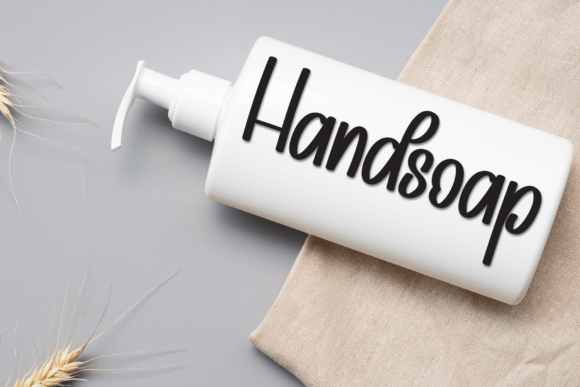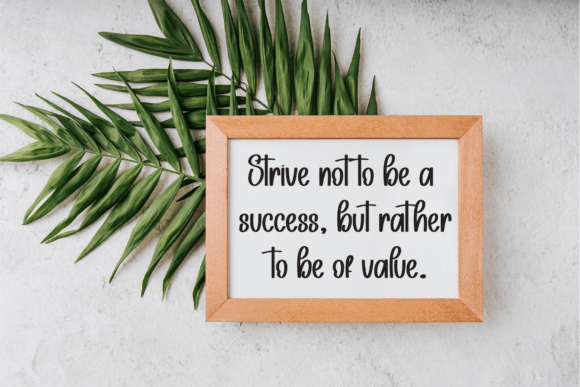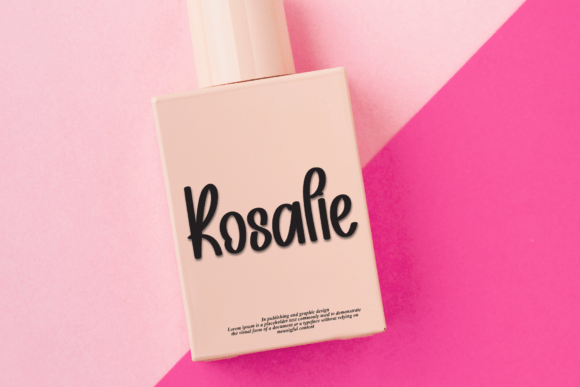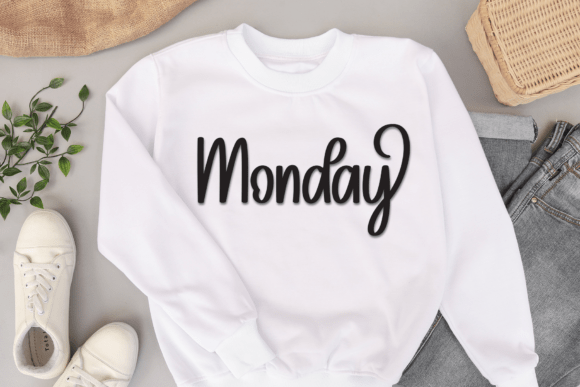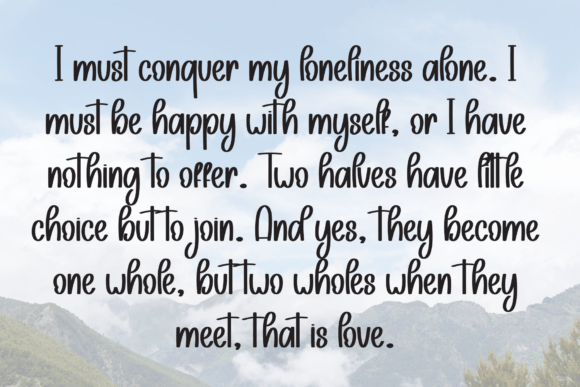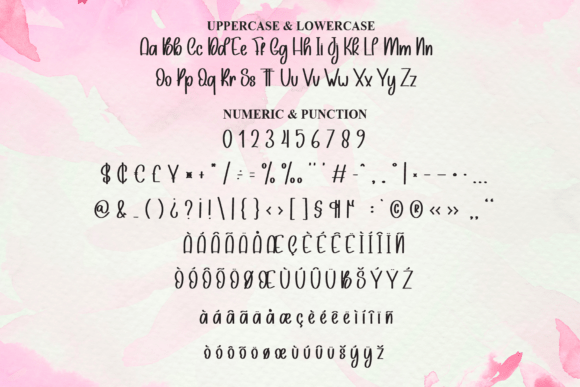
Introduction to Hey Pinky Font
As a designer, there’s nothing quite like the thrill of bringing a project to life. The blank canvas stares back at you, waiting for the perfect stroke of creativity to set it ablaze. And then, it happens – a spark of inspiration that ignites a chain of ideas, each one more captivating than the last. For me, that moment often comes when I stumble upon the perfect font, one that adds a dash of personality to my design and sets the tone for the rest of the project.
That’s exactly what happens when I encounter the Hey Pinky Font, a stunning handwritten script font that captures elegance and playfulness in every stroke. With its flowing curves and natural rhythm, it’s the perfect addition to any creative project, from high-quality invitations to social media graphics.
Key Features of Hey Pinky Font
- Unique and playful design: The Hey Pinky Font is perfect for creative projects that require a touch of whimsy and personality.
- High-quality font: This font is designed to provide a crisp and clear appearance, making it ideal for a variety of design applications.
- Transparent background: This font features a transparent background, allowing designers to easily layer it over other design elements.
- Large character set: The font includes a large character set, including uppercase and lowercase letters, numbers, and punctuation marks.
- Resolution-independent: The Hey Pinky Font is designed to be resolution-independent, making it perfect for use in a variety of design applications, from print to digital.
Honest Review: Hey Pinky Font
As a designer, I’m always on the lookout for high-quality design resources to elevate my creative projects. Recently, I had the chance to try out the Hey Pinky Font, and I’m excited to share my thoughts with you.
- The font’s playful and whimsical design makes it perfect for adding a touch of personality to your projects.
- The transparent background allows for easy editing and customization.
- The font may not be suitable for professional or formal projects due to its playful nature.
- The character set is limited, which may make it less versatile for certain design applications.
Overall, I’m impressed with the Hey Pinky Font’s potential to add a creative spark to your design projects. While it may have some limitations, its unique design and free download make it a valuable resource for designers looking to experiment with new ideas.
The Hey Pinky Font is a high-quality, free download design resource ideal for creative projects. With its unique and playful style, it can add a touch of whimsy to any design.
Use the Hey Pinky Font for creative projects such as invitations, social media graphics, and blog posts. Also, experiment with different font sizes, colors, and combinations to create a unique look.
The Hey Pinky Font is perfect for designers who want a high-quality, free download design resource for their creative projects. It’s ideal for use in designs with transparent backgrounds, making it perfect for social media graphics and blog posts.